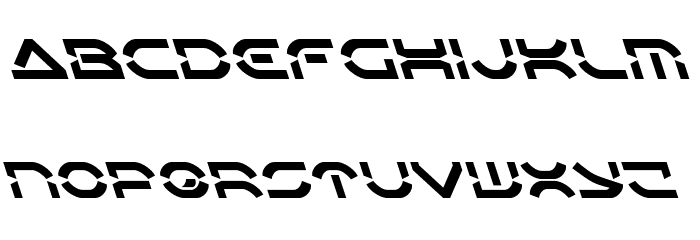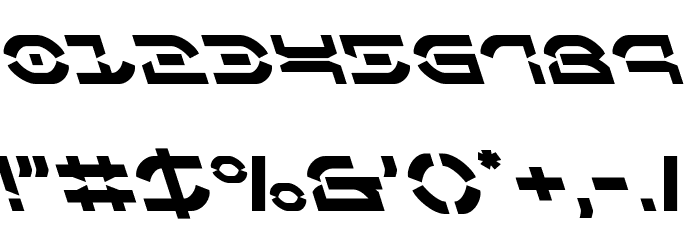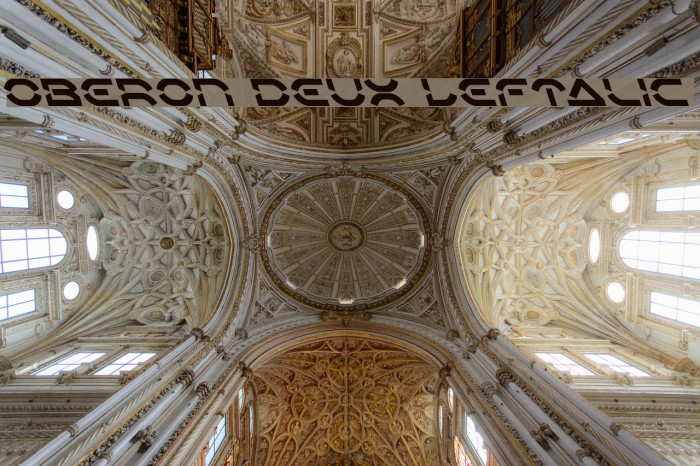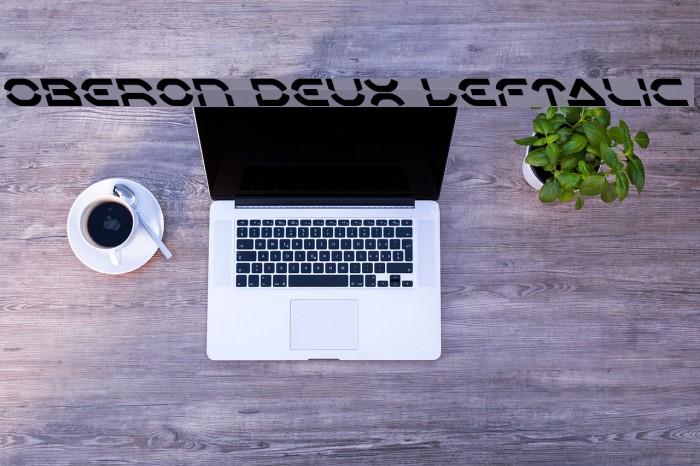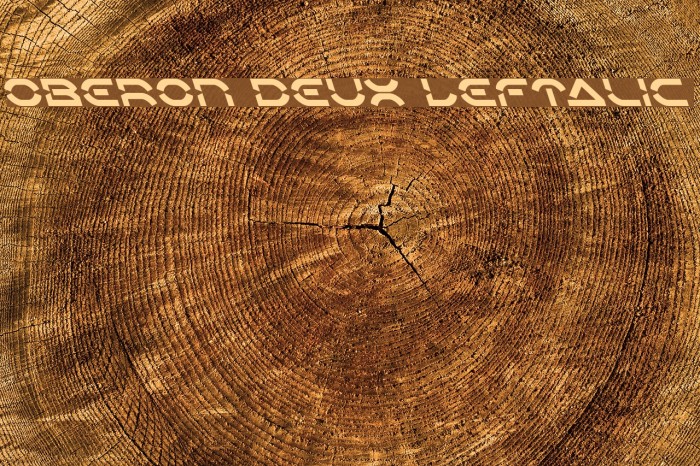
Oberon Deux Leftalic Font
This font features a futuristic and geometric design, characterized by sharp angles and bold, solid strokes. The letters are constructed with a stencil-like appearance, creating a sense of movement and modernity. The uppercase and lowercase letters maintain a consistent style, with unique cutouts and angular shapes that give the font a distinct and edgy look. The numbers and special characters follow the same design principles, ensuring a cohesive appearance across all glyphs. This font is ideal for projects that require a bold and contemporary aesthetic.
A futuristic, geometric font with sharp angles and a stencil-like design.
- Proposed Projects: Ideal for sci-fi themed designs, technology branding, video game titles, and modern posters.